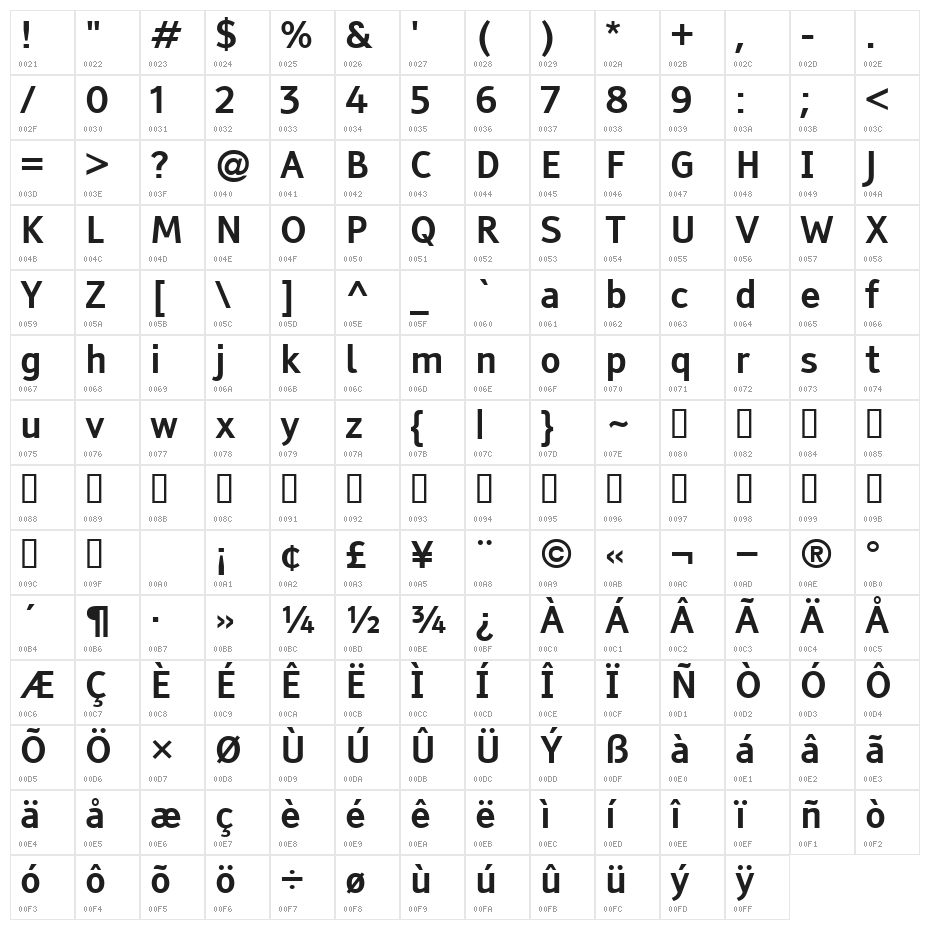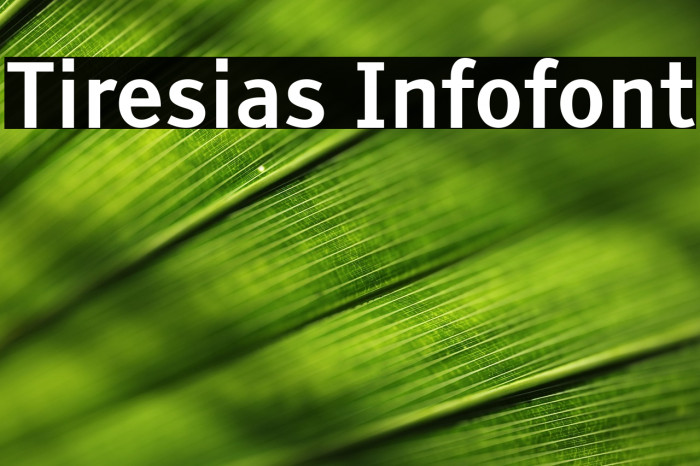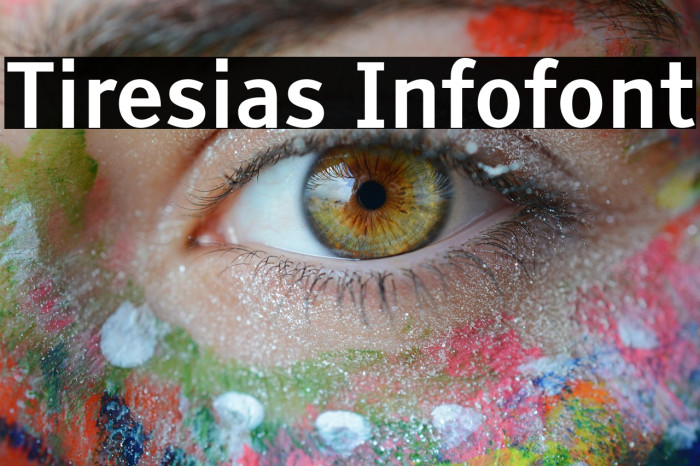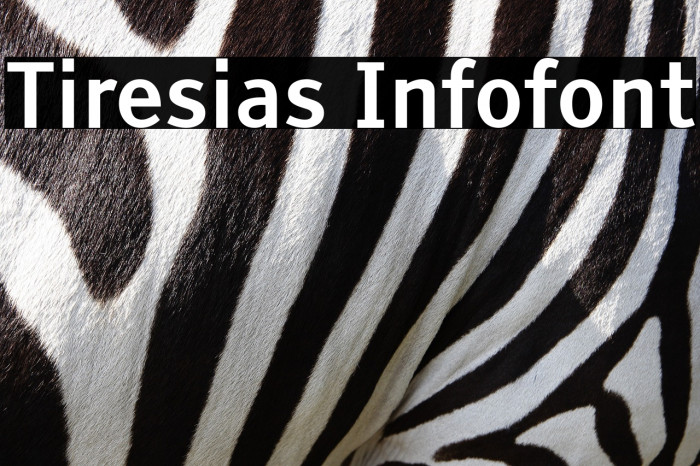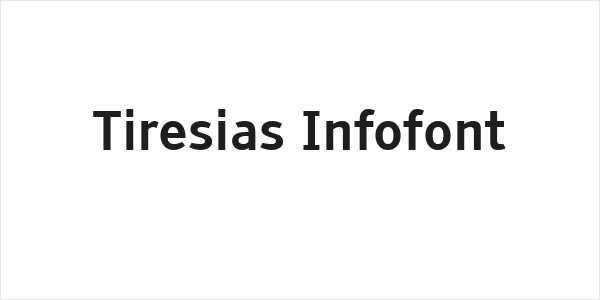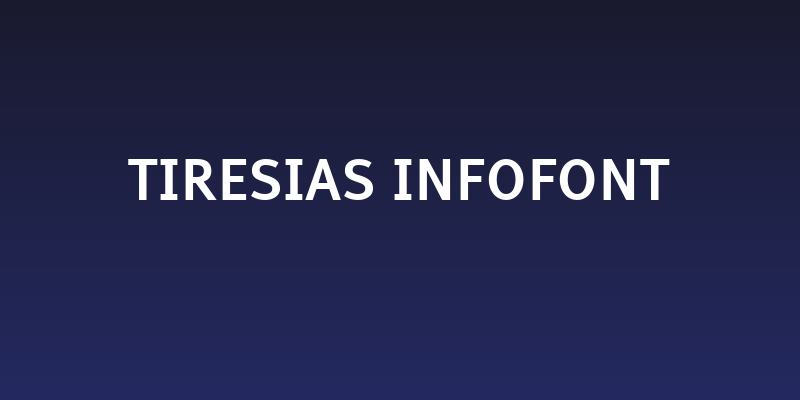
Tiresias Infofont Font
Tiresias Infofont Description
This typeface features a clean and modern sans-serif design, characterized by its clarity and readability. The letters are well-proportioned with a consistent stroke width, making it highly legible across various sizes. The uppercase and lowercase letters maintain a harmonious balance, while the numerals are straightforward and easily distinguishable. The special characters are designed to complement the overall style, ensuring versatility in different contexts. This font is ideal for digital interfaces, providing accessibility and ease of reading.
| Use Case | Headlines, Body text, Digital interfaces |
| Proposed Projects | Suitable for user interfaces, digital displays, signage, and accessible content. |